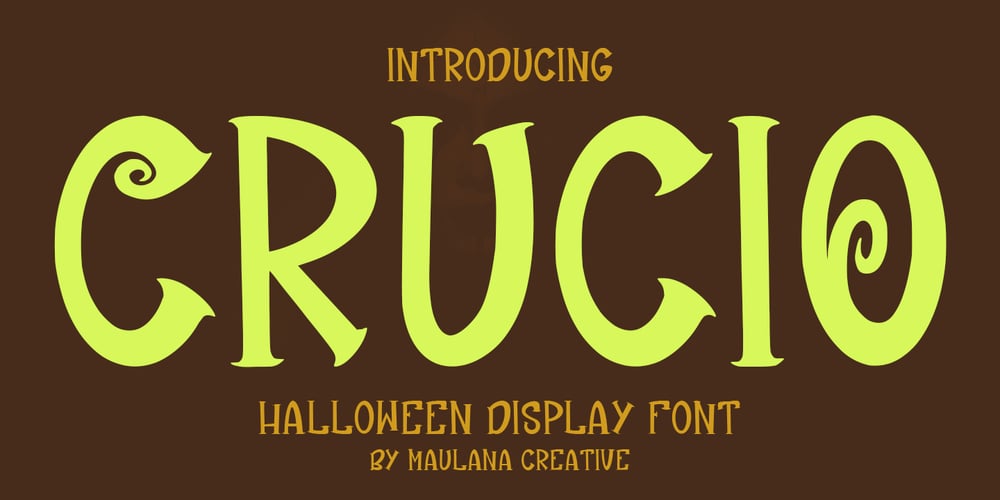
MC Crucio Font Family was designed by Gilang Maulana and published by Maulana Creative. MC Crucio contains 1 styles and family package options. Crucio display font. Bold stroke, fun character with a bit of ligatures and alternates. To give you an extra creative work. Crucio font support multilingual more than 100+ language. This font is good for logo design, Social media, Movie Titles, Books Titles, a short text even a long text letter and good for your secondary text font with script or serif. Make a stunning work with Crucio display font.Cheers,Maulana Creative